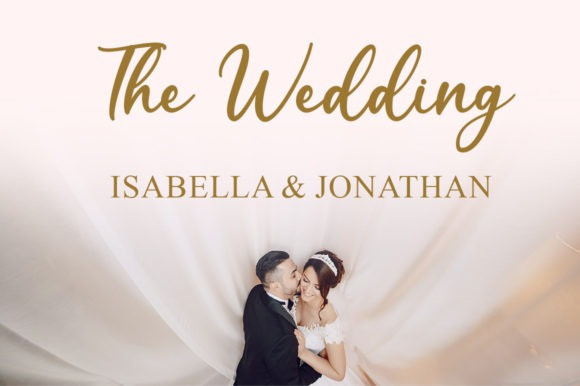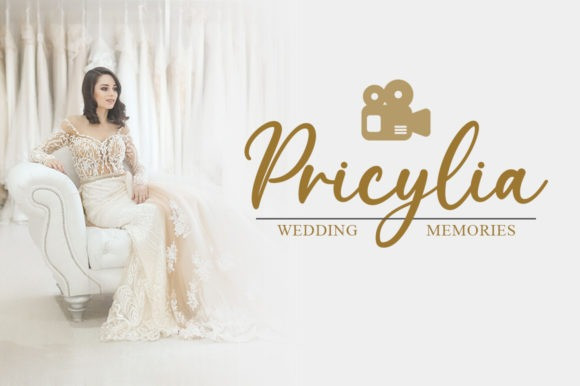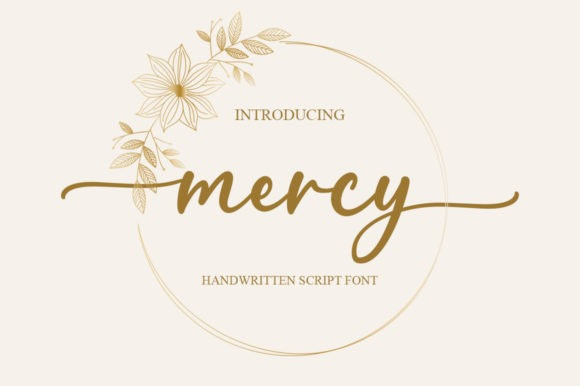
Mercy Font
Mercy Font is a delicate, elegant, and flowing handwritten font. It has beautiful and well-balanced characters and as a result, it matches a wide pool of designs. Mercy is PUA encoded, which means you can access all of the glyphs and swashes with ease!